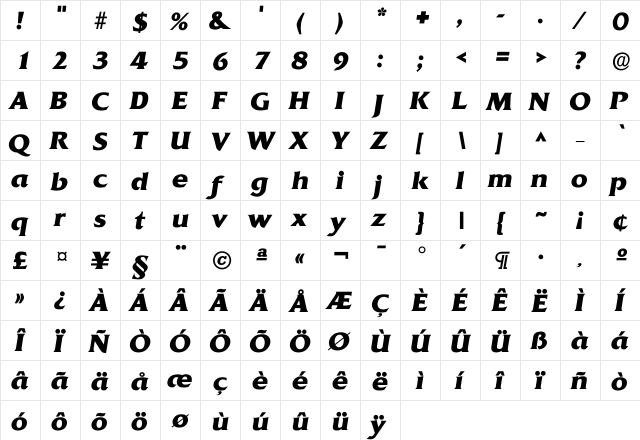
Iquadrat Bold
Design Context for Iquadrat Typeface
Iquadrat offers clean, dependable letterforms without strong stylistic allegiance, making it a practical choice for designers who need flexibility. Its bold stroke weight gives it real presence on the page.